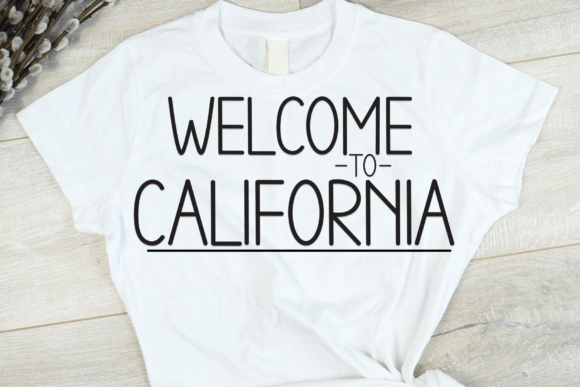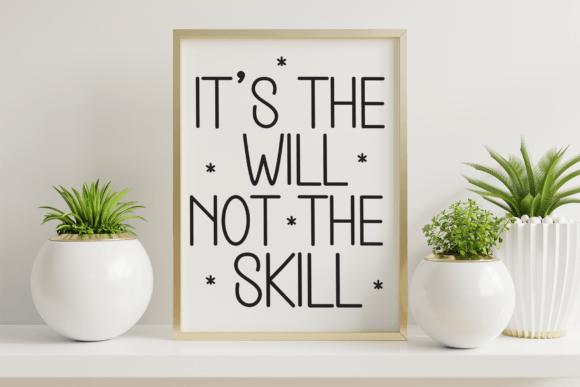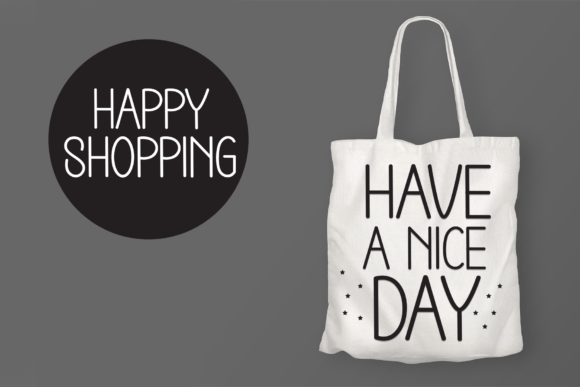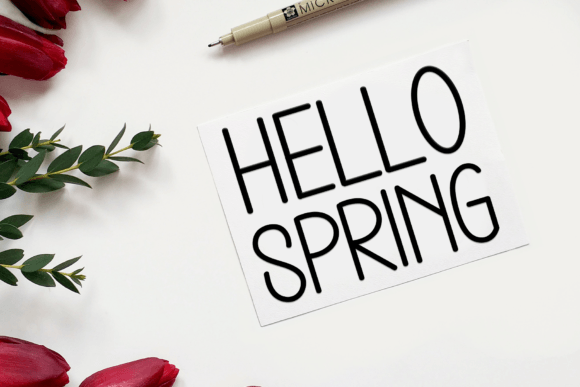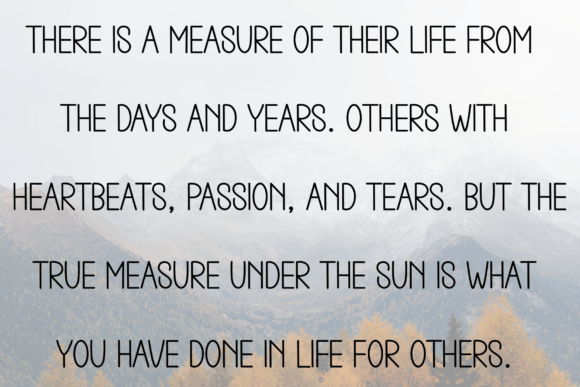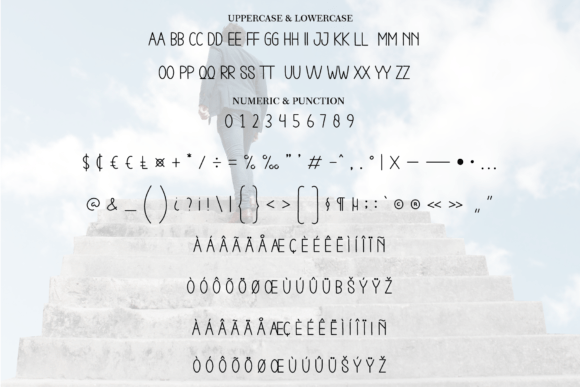
Introducing Going Up Font: The Sweet and Friendly Handwritten Font for Your Design Needs
Are you looking for a font that can add a personal touch to your designs? Do you want to create beautiful wedding invitations, cards, or other materials that exude warmth and friendliness? Look no further than Going Up Font, a sweet and friendly handwritten font that’s perfect for a variety of design projects.
What is Going Up Font?
Going Up Font is a fresh and casual handwritten font that’s designed to bring a touch of elegance and sophistication to your designs. With its smooth and flowing lines, this font is ideal for creating beautiful wedding invitations, cards, and other materials that require a personal touch.
Characteristics of Going Up Font
So, what makes Going Up Font so special? Here are some of its key characteristics:
- Sweet and Friendly: Going Up Font has a warm and inviting feel that’s perfect for creating designs that are friendly and approachable.
- Handwritten: This font has a beautiful, handwritten look that’s perfect for creating personal and unique designs.
- Fresh and Casual: Going Up Font has a fresh and casual feel that’s perfect for creating designs that are modern and trendy.
- Versatile: This font is versatile and can be used for a variety of design projects, from wedding invitations to cards and more.
Uses for Going Up Font
So, what can you use Going Up Font for? Here are some ideas to get you started:
- Wedding Invitations: Going Up Font is perfect for creating beautiful wedding invitations that are personal and unique.
- Cards: This font is great for creating cards for special occasions, such as birthdays, anniversaries, and more.
- Stationery: Going Up Font can be used to create beautiful stationery, such as letterheads and notebooks.
- Signage: This font can be used to create eye-catching signage for events, businesses, and more.
Why Choose Going Up Font?
So, why should you choose Going Up Font for your design needs? Here are some reasons:
- Unique: Going Up Font has a unique and distinctive look that’s sure to set your designs apart.
- Easy to Read: This font is easy to read, making it perfect for creating designs that need to be clear and concise.
- Customizable: Going Up Font can be customized to fit your design needs, making it perfect for creating unique and personalized designs.
- High-Quality: This font is of high quality, ensuring that your designs look professional and polished.
Tips for Using Going Up Font
Here are some tips for using Going Up Font in your designs:
- Pair with Other Fonts: Going Up Font can be paired with other fonts to create a unique and interesting look.
- Use for Headings: This font is perfect for use in headings, as it adds a touch of elegance and sophistication.
- Experiment with Colors: Going Up Font can be used with a variety of colors to create a unique and eye-catching look.
- Keep it Simple: Don’t be afraid to keep your design simple and clean, as Going Up Font can stand on its own.
Going Up Font is a sweet and friendly handwritten font that’s perfect for a variety of design projects. With its smooth and flowing lines, this font is ideal for creating beautiful wedding invitations, cards, and other materials that require a personal touch. Whether you’re a designer or crafter, Going Up Font is a great choice for adding a touch of elegance and sophistication to your designs.